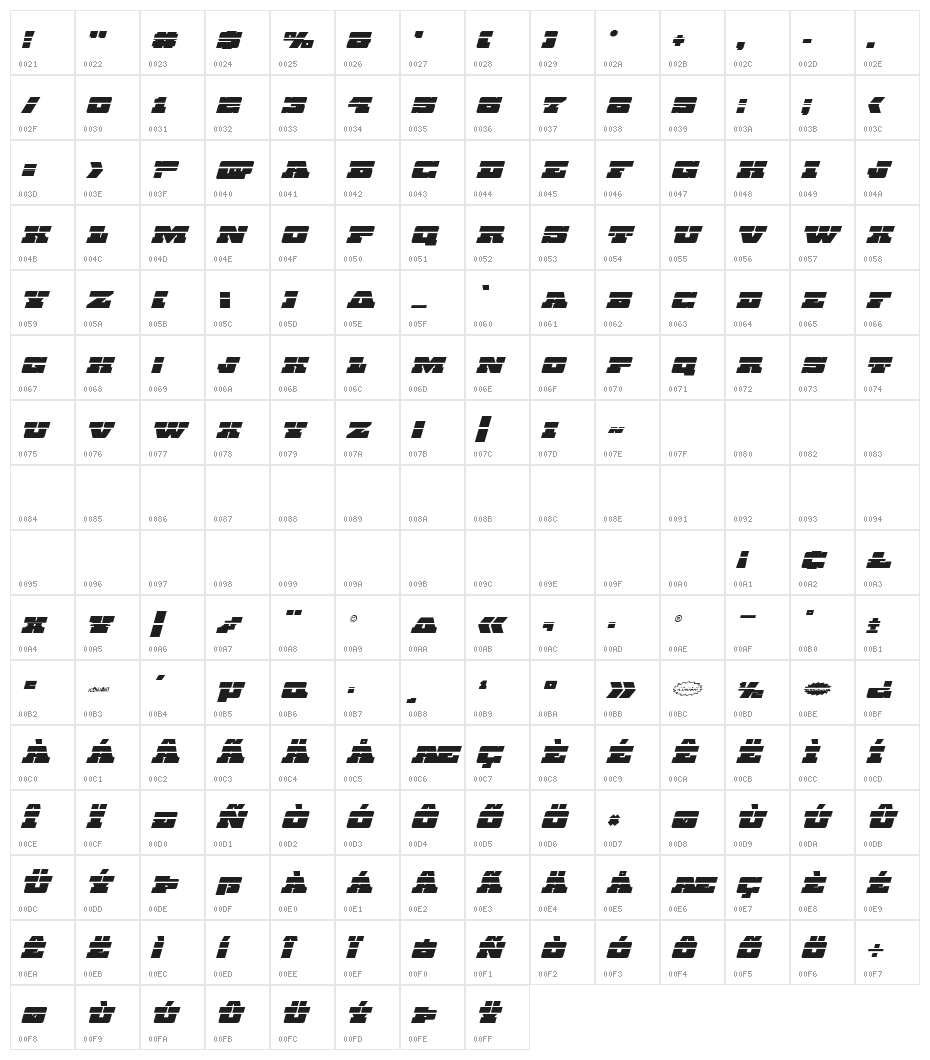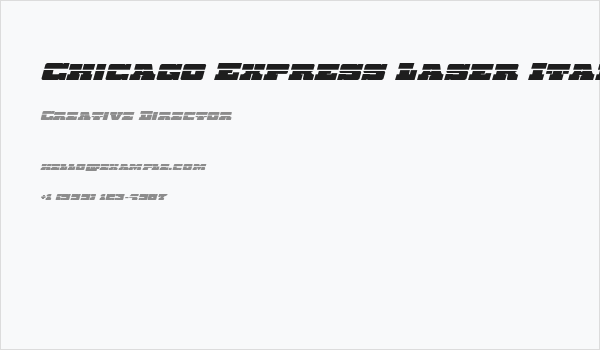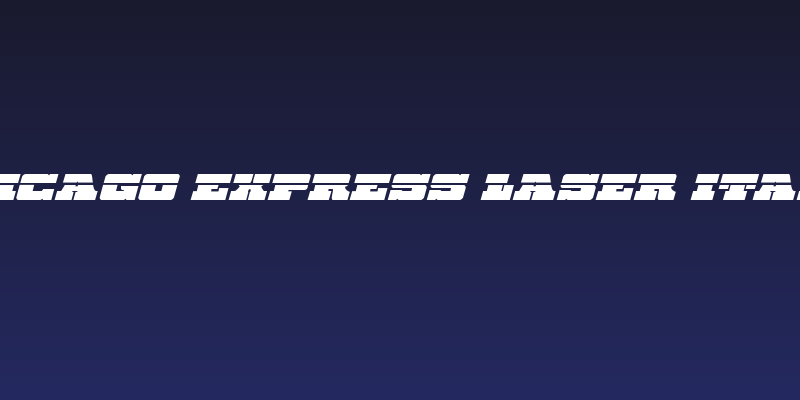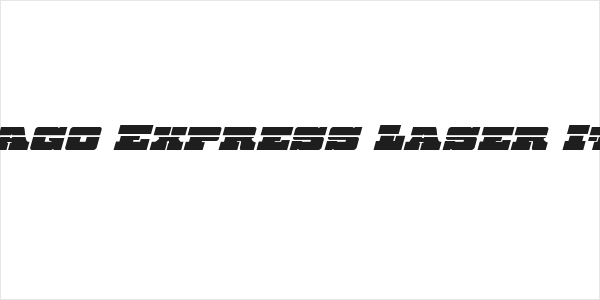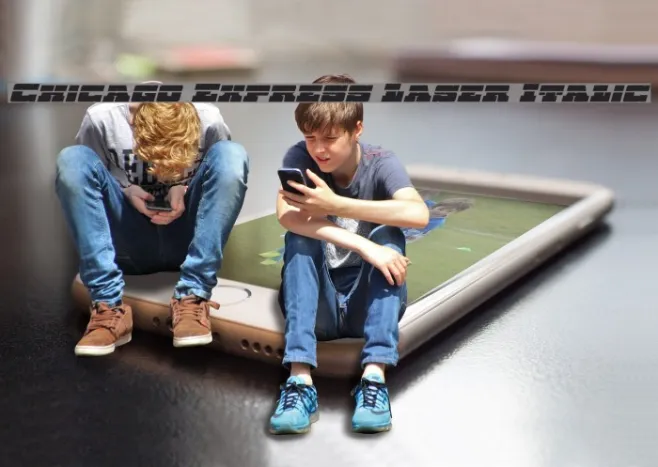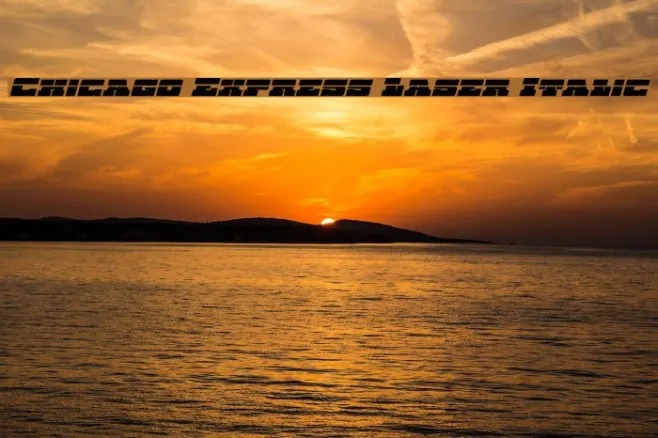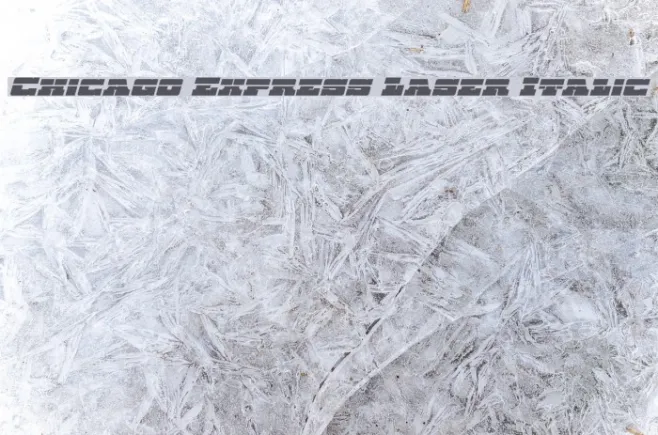
Chicago Express Laser Italic Font
Chicago Express Laser Italic Description
This font features a bold, italicized style with a futuristic and dynamic appearance. The characters are designed with sharp angles and a blocky structure, giving them a strong presence. The italic slant adds a sense of motion and speed, making it ideal for projects that require a modern and energetic look. The uppercase and lowercase letters maintain a consistent style, with numbers and special characters following the same design principles. The font's unique aesthetic makes it suitable for attention-grabbing headlines and logos.
| Proposed Projects | Ideal for sports branding, tech logos, video game titles, and dynamic advertising campaigns. |